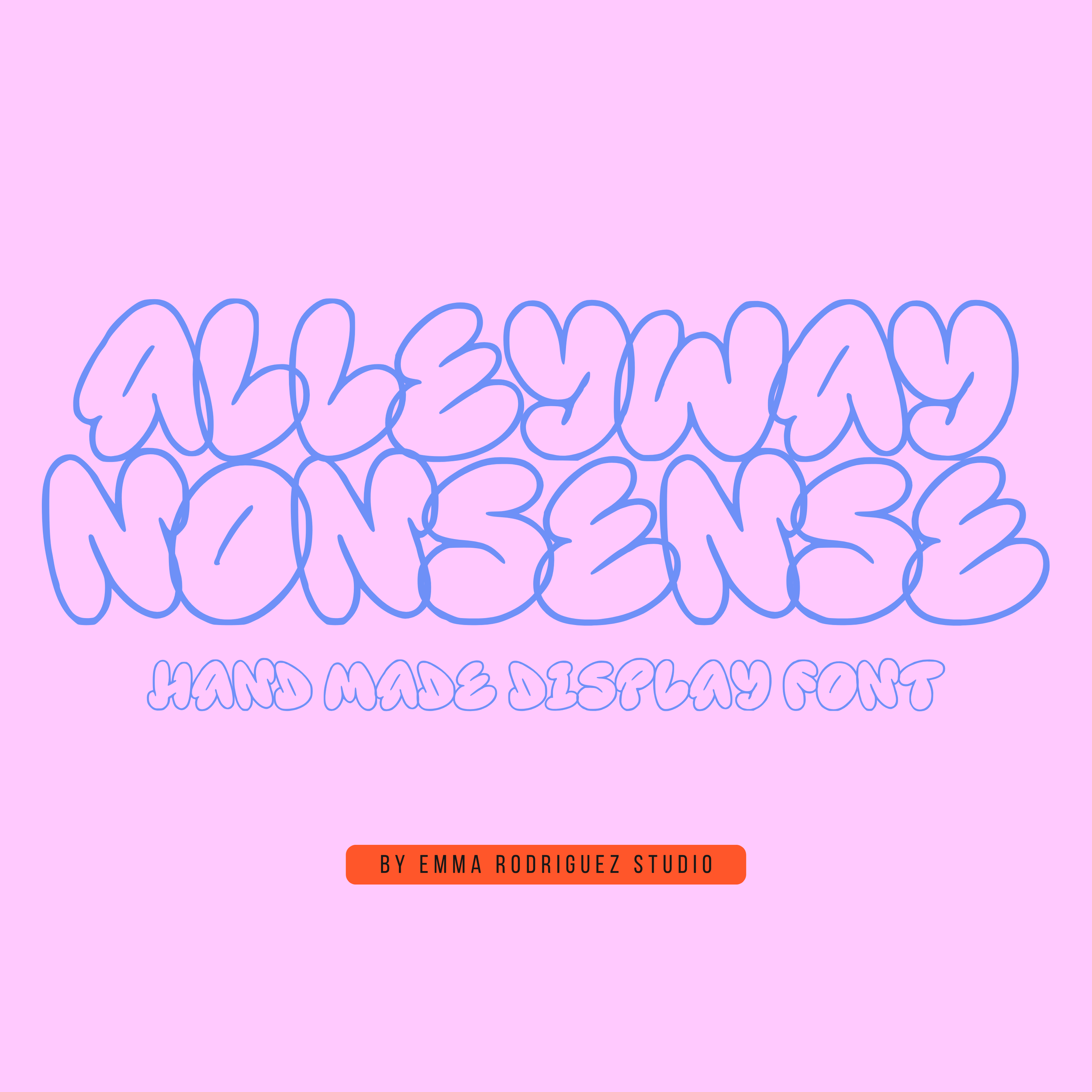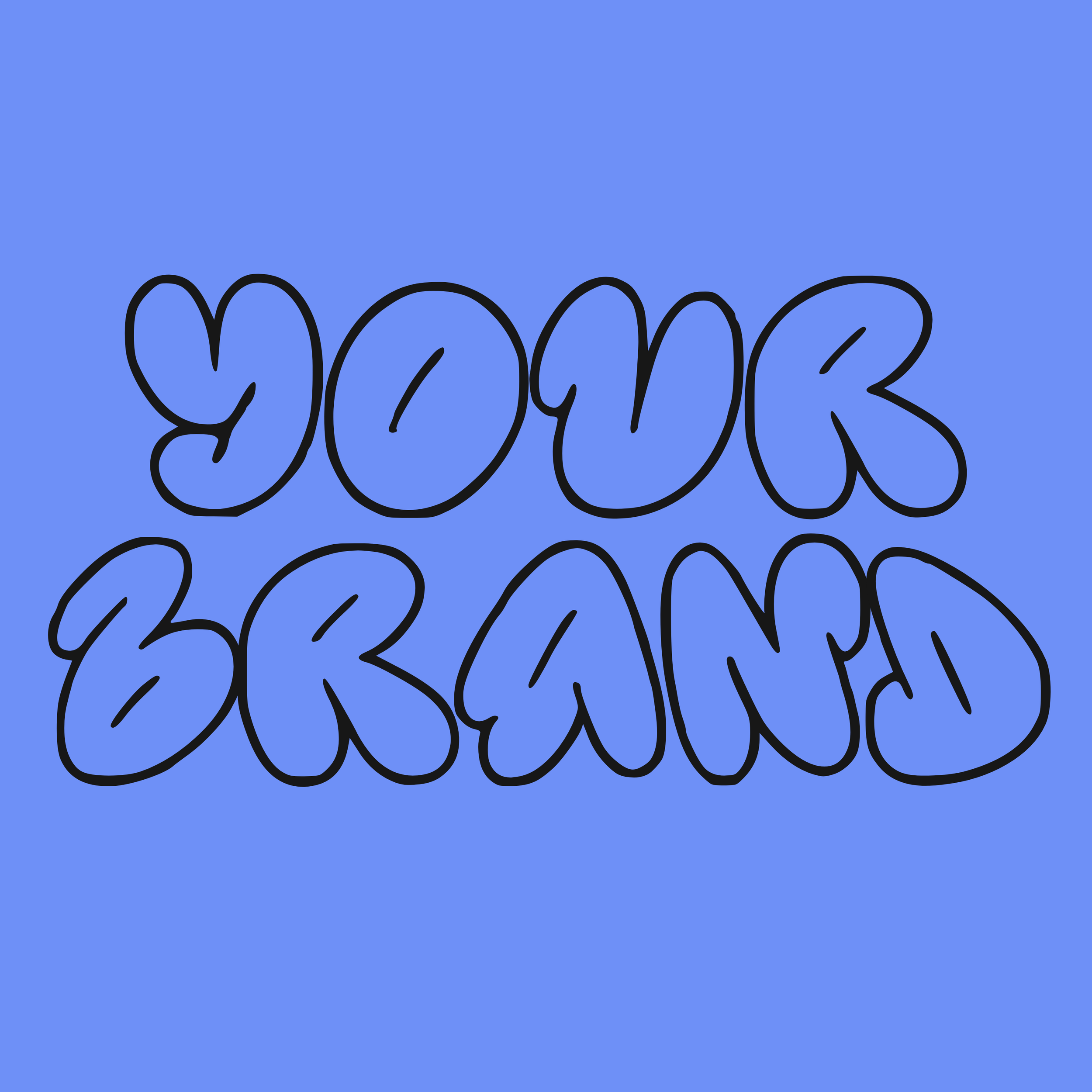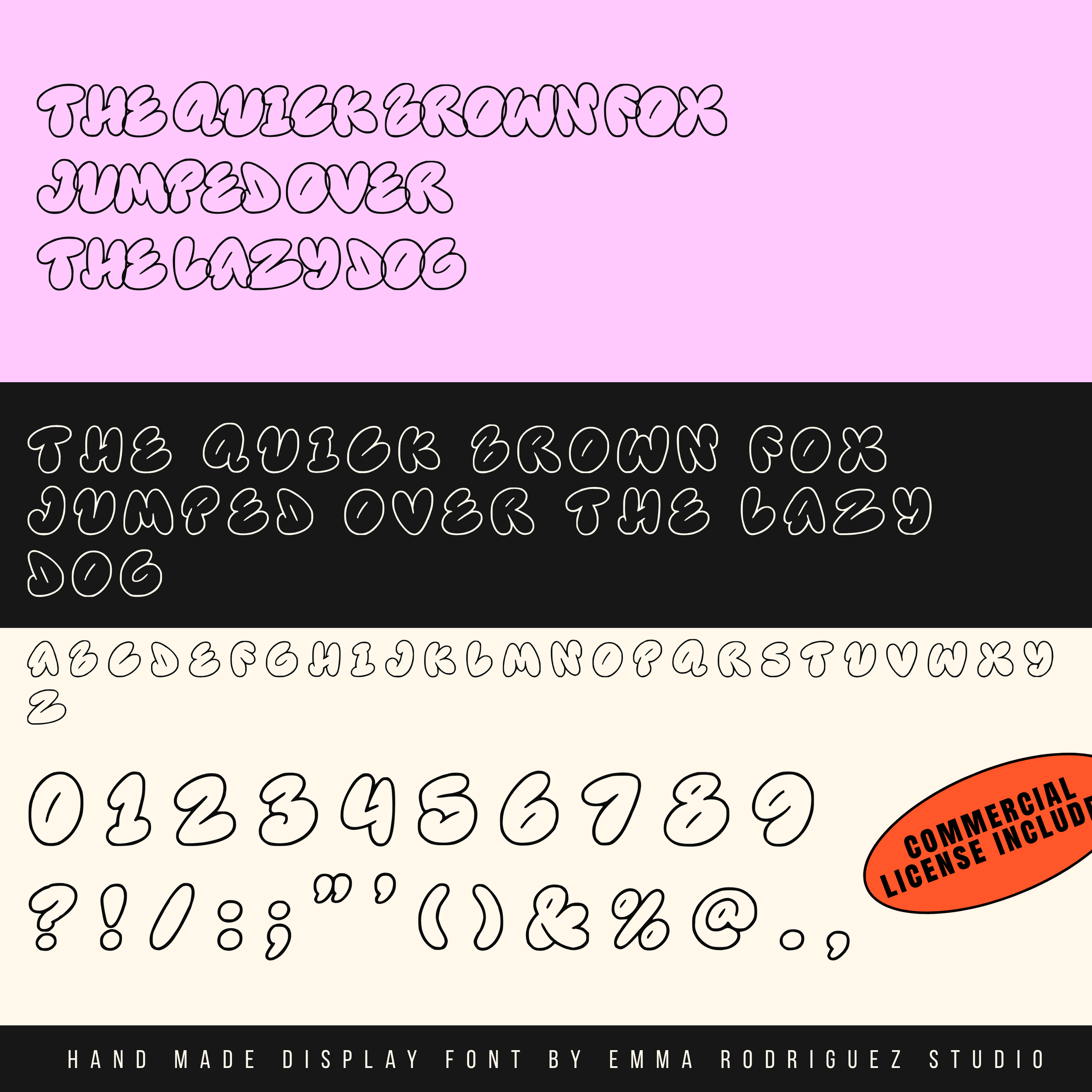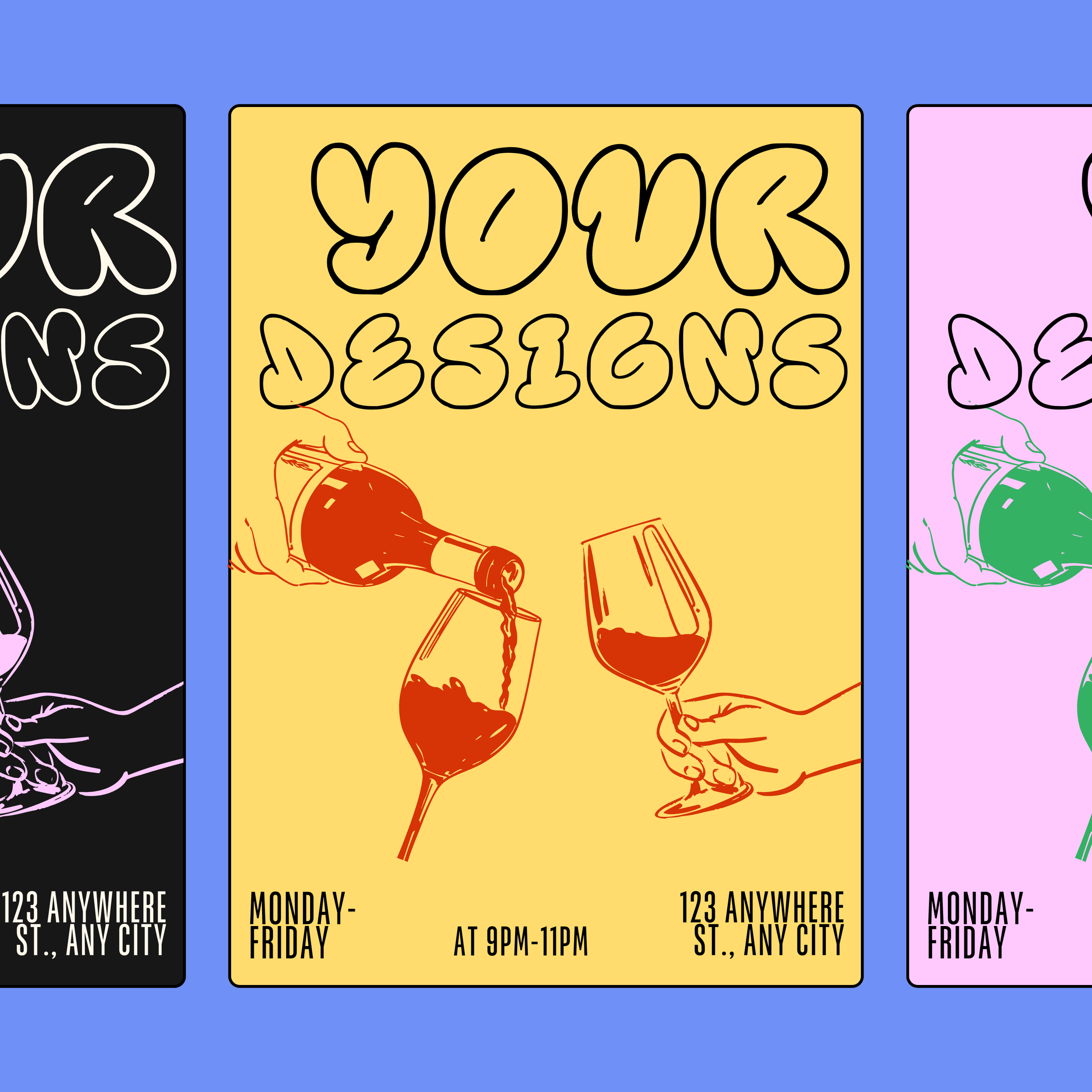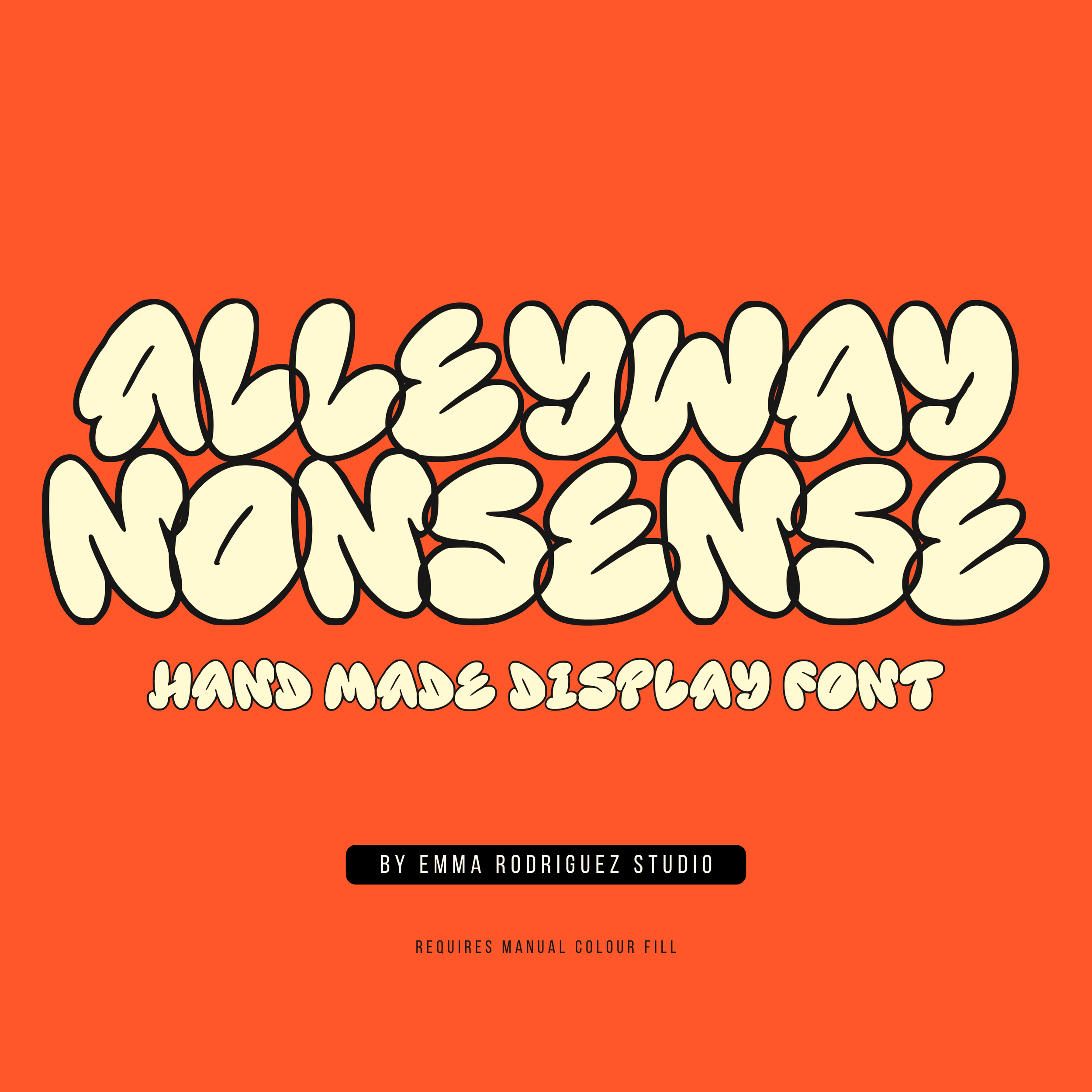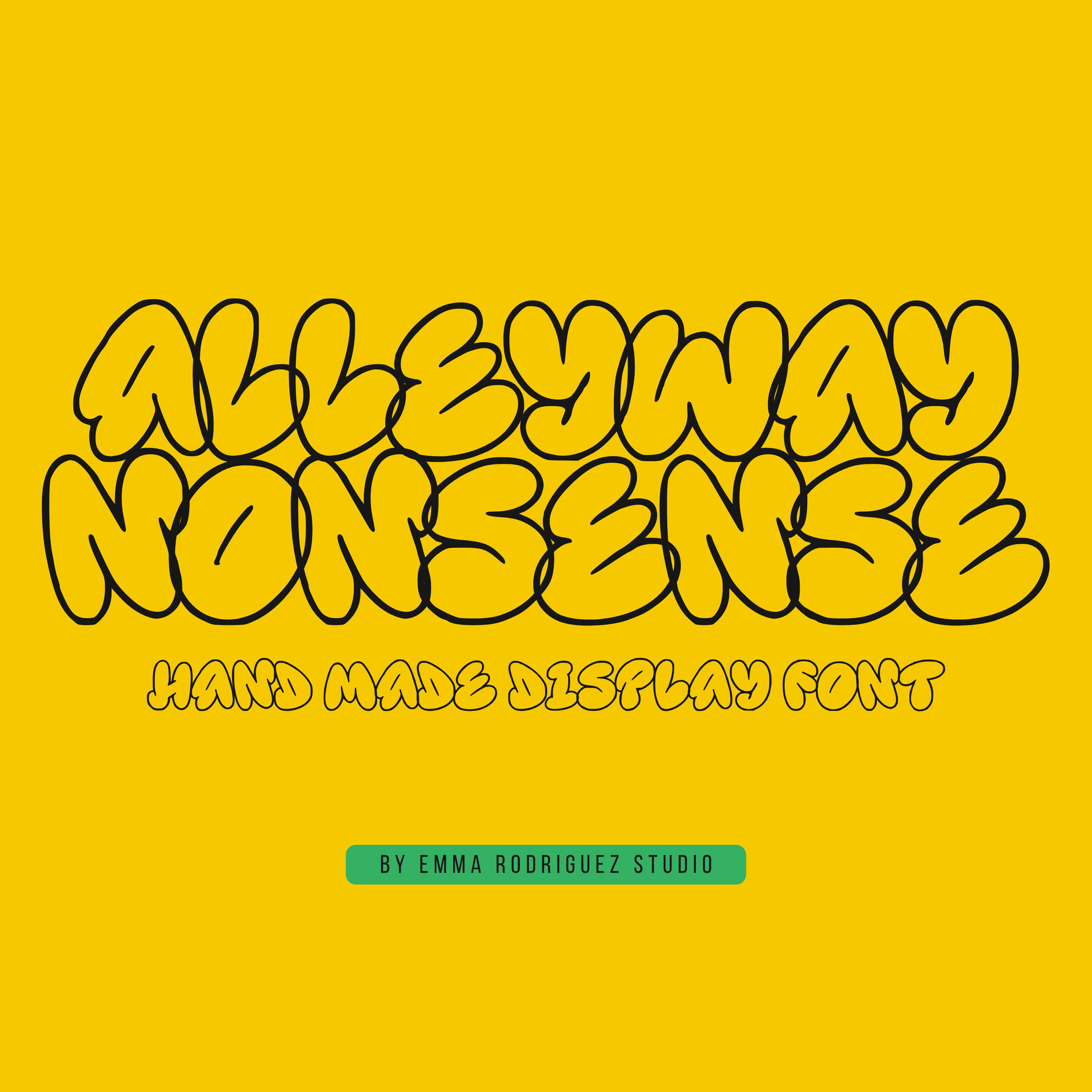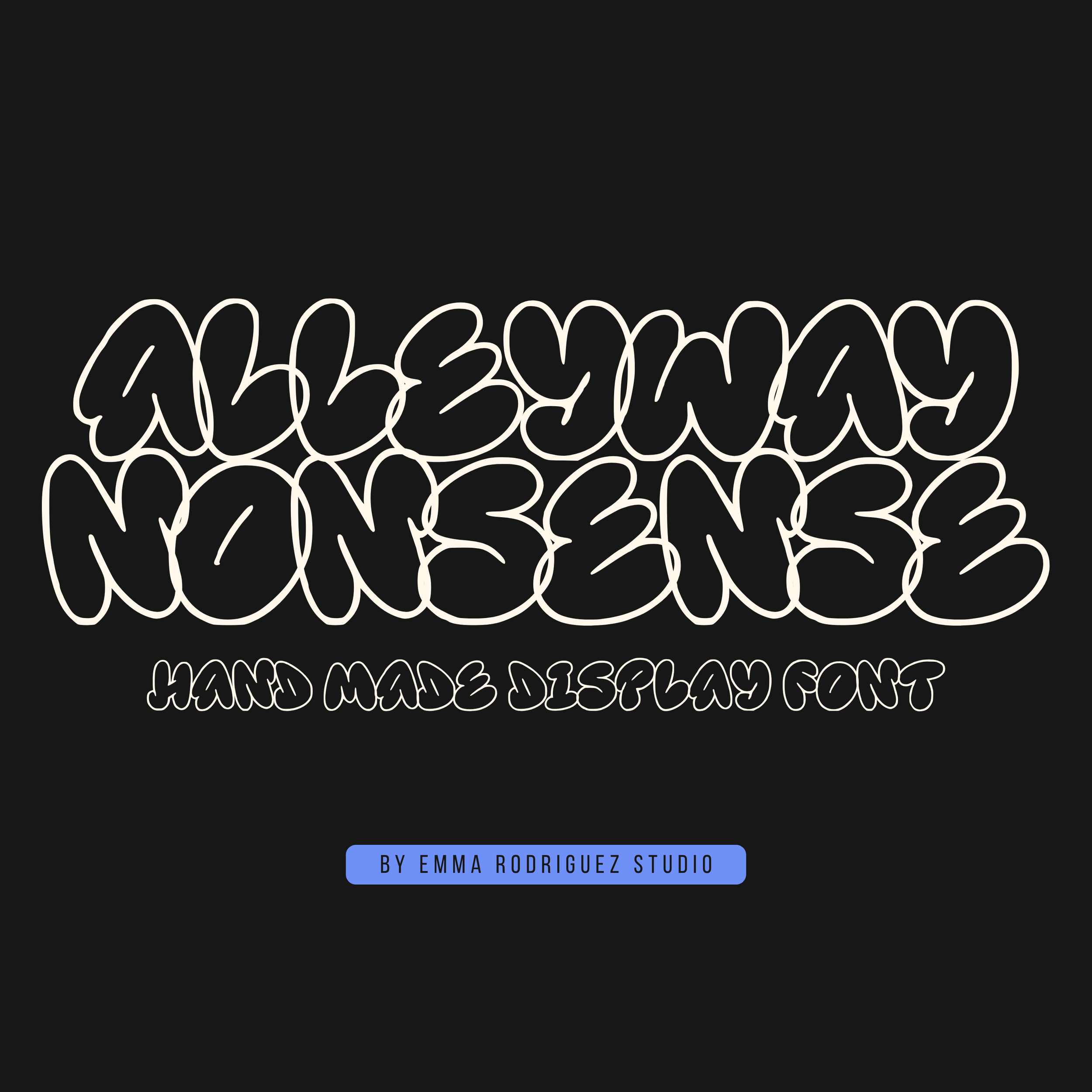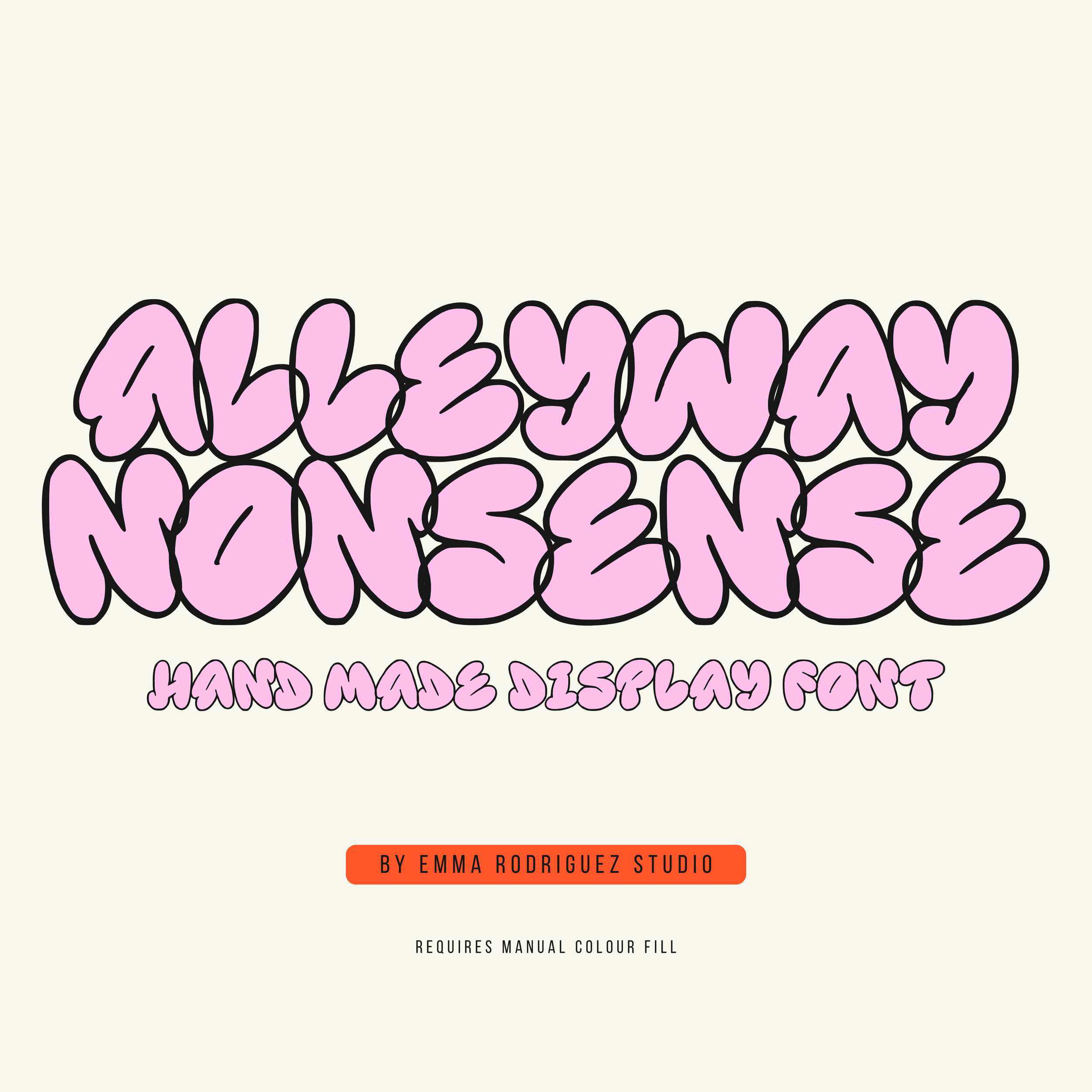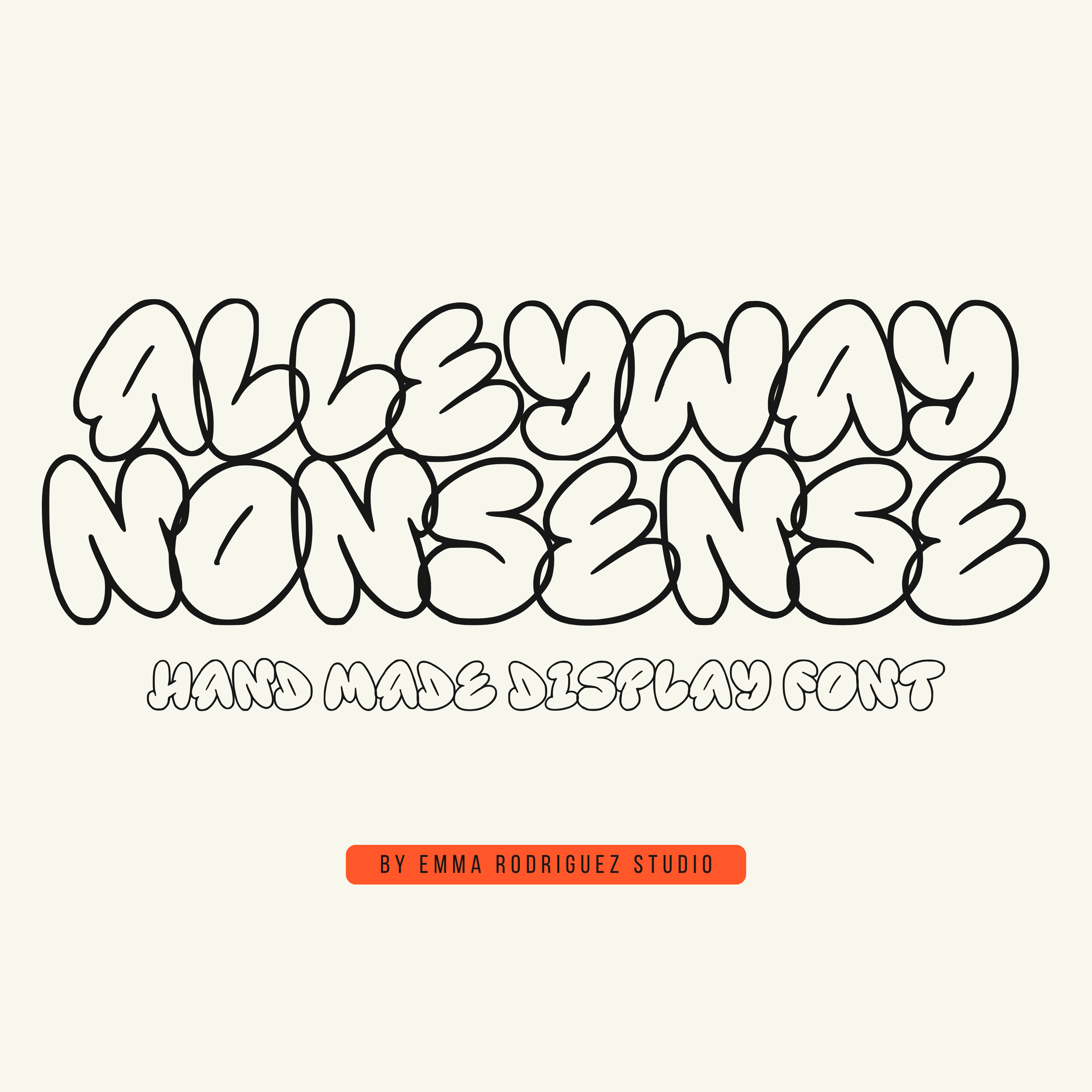
Alleyway Nonsense Font - Comic Graffiti Type
Alleyway Nonsense is a graffiti style comic bubble outline font with chunky hand drawn letterforms, playful rounded shapes and a bold single case display style. It has that puffy marker-drawn, street graphic feel that sits somewhere between comic lettering, bubble graffiti and expressive handmade typography, making it a strong choice for posters, branding, stickers and playful packaging design.
This is a single case font, meaning the character set follows one consistent case style rather than having separate traditional uppercase and lowercase versions. That gives it a more stylised, characterful look and keeps the whole font feeling cohesive and deliberately playful.
The irregular letterforms, spacing, proportions and handmade construction are all intentional and part of the font’s style. The slightly odd shapes, uneven rhythm and loose comic-graffiti feel are deliberate rather than errors, and some manual kerning or letter placement may be useful depending on your layout.
• Outline-only letterforms
• Single case character set
• Numbers and punctuation
Fonts by Emma Rodriguez Studio are made to have personality. Expect naive shapes, wonky details, playful imperfections and type that doesn’t take itself too seriously. They’re not designed for clean, minimal branding. They’re for bold, quirky, maximalist projects that need something a little stranger, sillier and more expressive.